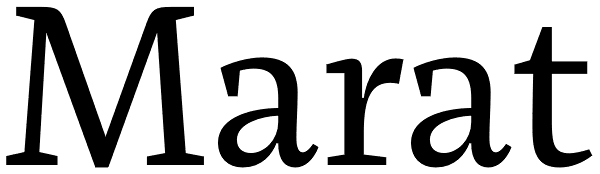
Marat
Although originally conceived as a magazine face – with strong serifs and open character shapes for good legibility in small sizes, and compact letter forms optimized for narrow columns and tight headlines – Marat evolved into a comprehensive family...